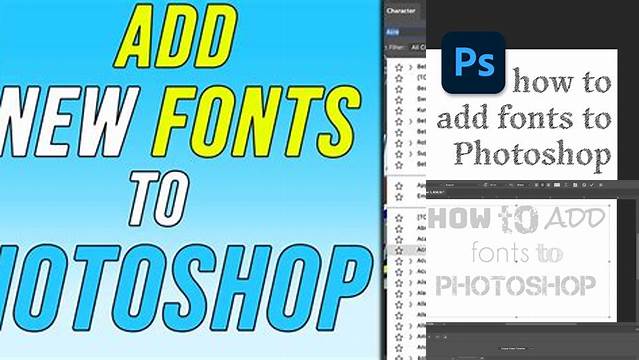
Add Fonts To Photoshop: A Step-by-Step Guide
Are you looking to add more fonts to Photoshop? Guys, you've come to the right place! Whether you're a seasoned designer or just starting out, having a diverse font library is essential for creating visually stunning projects. Photoshop comes with a decent selection of fonts, but sometimes you need that extra flair to truly make your designs pop. In this comprehensive guide, we'll walk you through the process of adding fonts to Photoshop, ensuring you have the perfect typography for every project. From finding and downloading new fonts to installing them on your system and accessing them in Photoshop, we've got you covered. We'll also delve into managing your fonts, troubleshooting common issues, and exploring the world of font resources to expand your creative horizons. So, let's dive in and get those fresh fonts into your Photoshop arsenal!
Why Adding Fonts to Photoshop Matters
In the realm of graphic design, fonts play a pivotal role in shaping the overall aesthetic and conveying the intended message. They're not just about making words visible; they're about imbuing your designs with personality, emotion, and character. A carefully chosen font can elevate your work from ordinary to extraordinary, helping you capture attention and connect with your audience on a deeper level. Think of fonts as the voice of your design, speaking volumes without uttering a single word. When you add more fonts to Photoshop, you're essentially expanding your creative palette, giving yourself a wider range of options to express your artistic vision. With a diverse font library at your fingertips, you can tailor your typography to perfectly match the mood, style, and purpose of each project.
Imagine you're designing a poster for a vintage-themed event. A modern, sleek font might look completely out of place, while a classic, retro-inspired typeface would instantly transport your audience to another era. Or perhaps you're crafting a logo for a tech startup. A bold, futuristic font could convey innovation and cutting-edge technology, setting the right tone for the brand. The power of fonts lies in their ability to evoke emotions, communicate ideas, and create a lasting impression. By adding more fonts to Photoshop, you're equipping yourself with the tools to tell compelling visual stories and craft designs that truly resonate with your audience. Moreover, having a variety of fonts can help you stay ahead of design trends and keep your work fresh and exciting. As design aesthetics evolve, new fonts emerge, and having access to these trends can give your projects a contemporary edge. Whether you're working on branding, web design, print materials, or social media graphics, a well-curated font library is an invaluable asset for any designer.
- Font Squirrel: Another excellent source for free, commercially licensed fonts, Font Squirrel offers a curated selection of high-quality typefaces that are perfect for professional projects. The website also features a handy Font Identifier tool that can help you identify fonts from images.
Free vs. Premium Fonts
When searching for fonts, you'll encounter both free and premium options. Understanding the differences between the two can help you make informed decisions about which fonts to use in your projects.
- Free Fonts: Free fonts are a great way to expand your font library without breaking the bank. Many websites offer free fonts for personal or commercial use, but it's important to check the licensing terms before using them in your projects. Free fonts can be a good option for smaller projects or when you're just starting out, but keep in mind that the quality and variety may not be as high as with premium fonts.
- Premium Fonts: Premium fonts are typically designed by professional type designers and offer a higher level of quality, variety, and support. While they come with a price tag, premium fonts can be a worthwhile investment if you're serious about design. They often include a wider range of weights and styles, as well as additional features like ligatures and alternate characters. Plus, using premium fonts can help your designs stand out and give them a polished, professional look.
Adding more fonts to Photoshop is a simple yet powerful way to enhance your designs and express your creative vision. By following the steps outlined in this guide, you can build a diverse font library that meets your needs and inspires your creativity. Remember to explore different font resources, check font licenses, and manage your fonts effectively to get the most out of your typography. With the right fonts at your fingertips, you can craft stunning designs that captivate your audience and leave a lasting impression. So, go ahead and unleash your creativity with a world of new fonts in Photoshop!